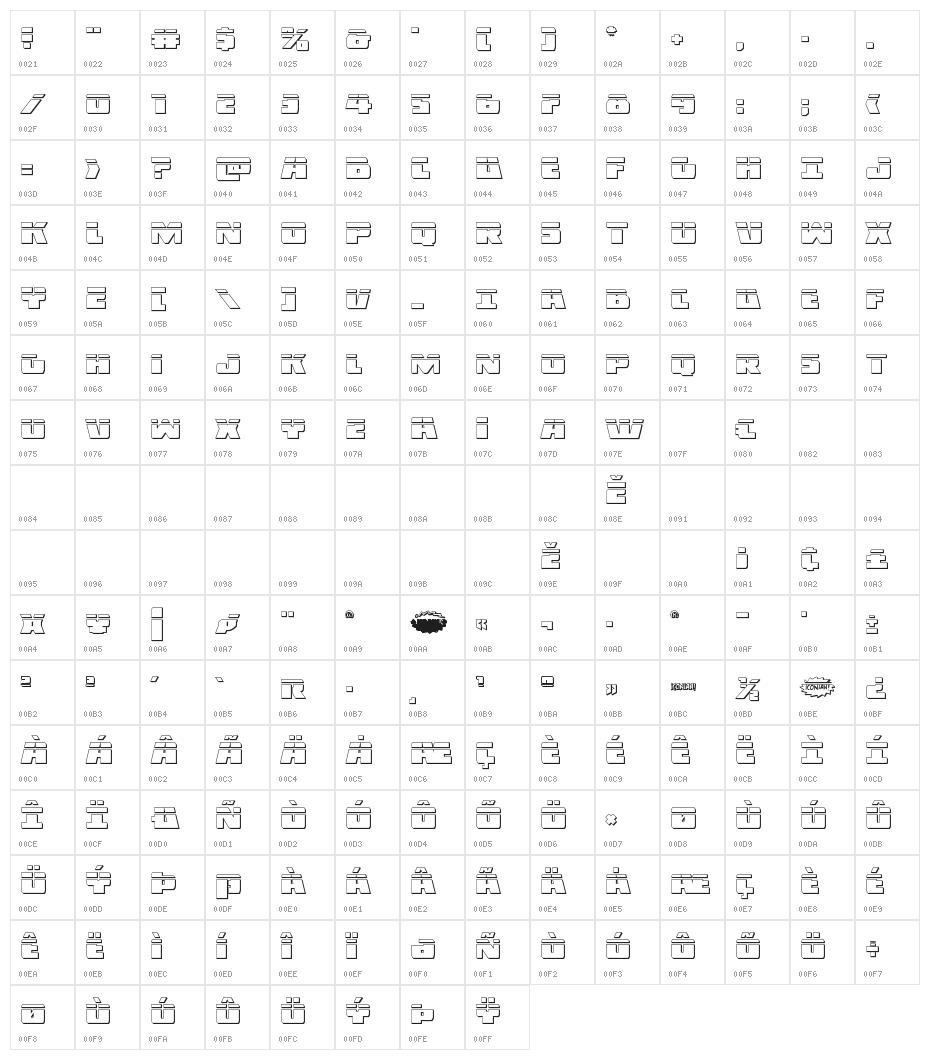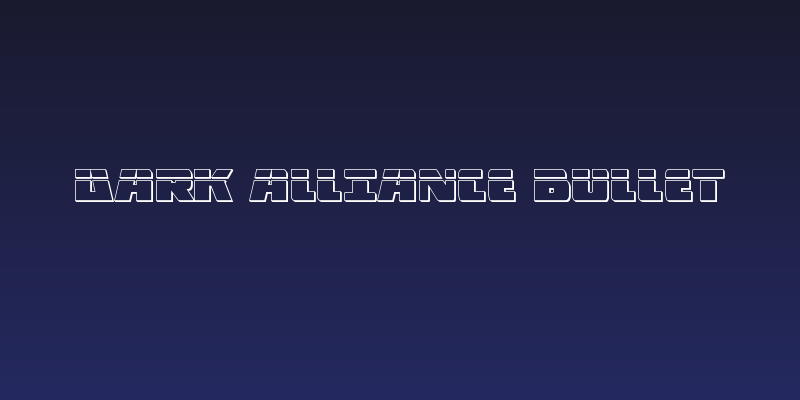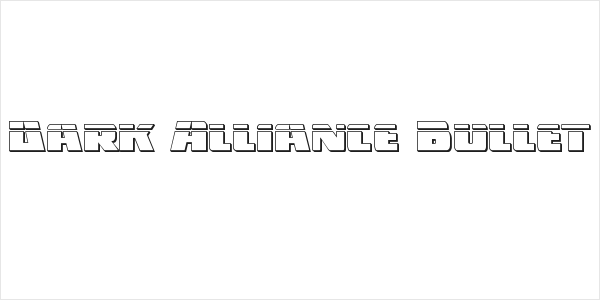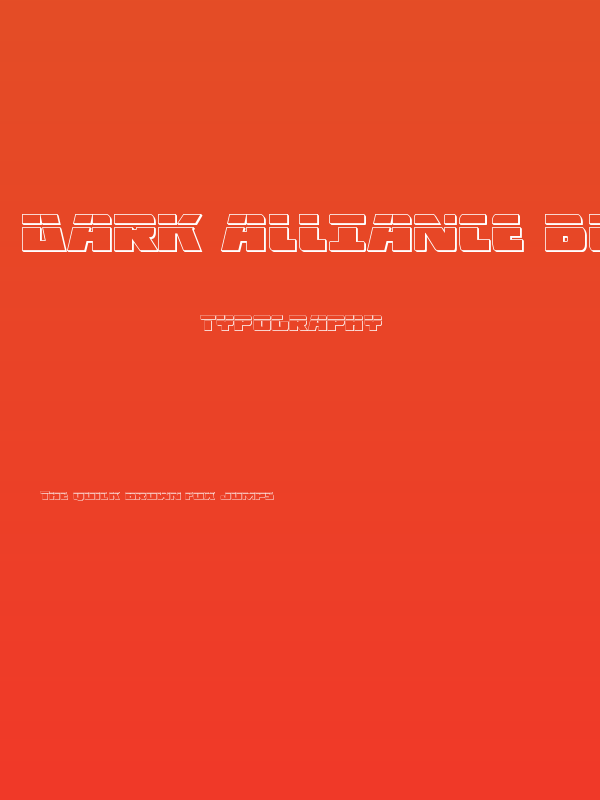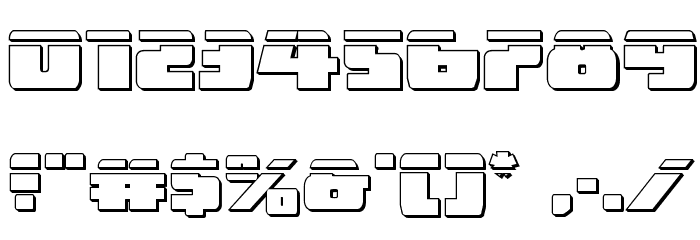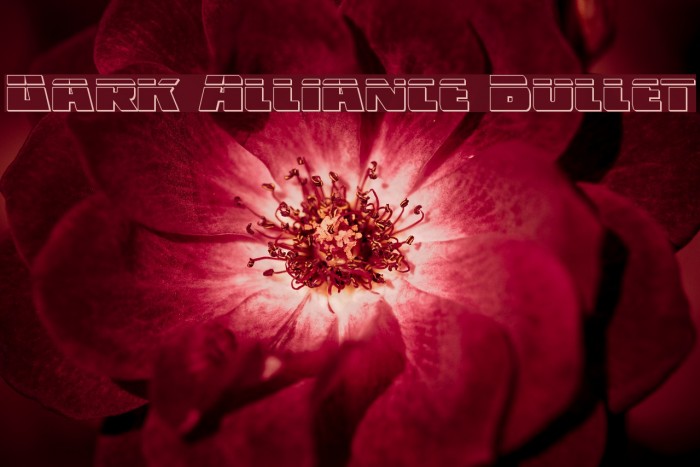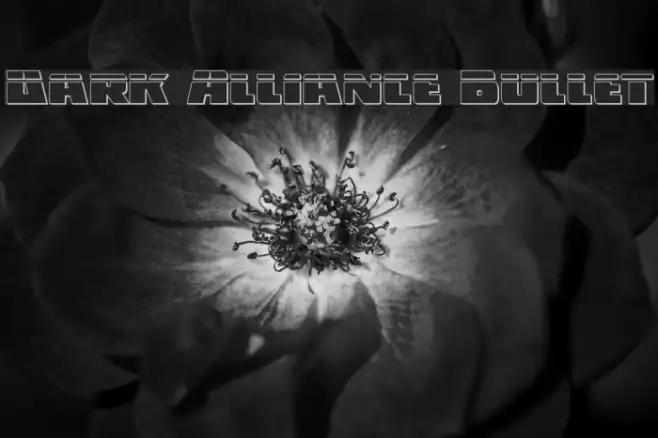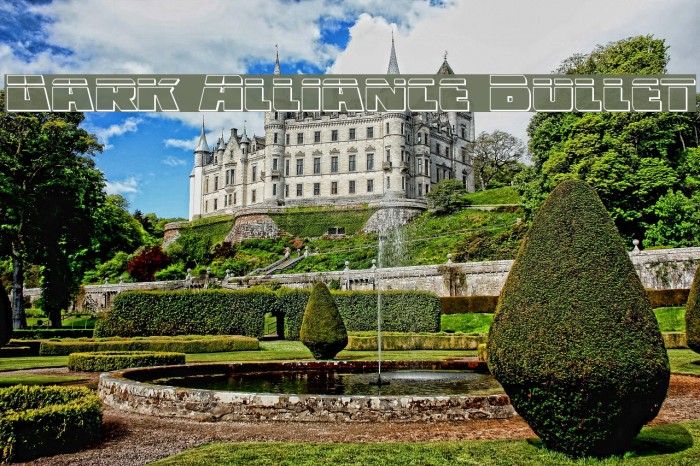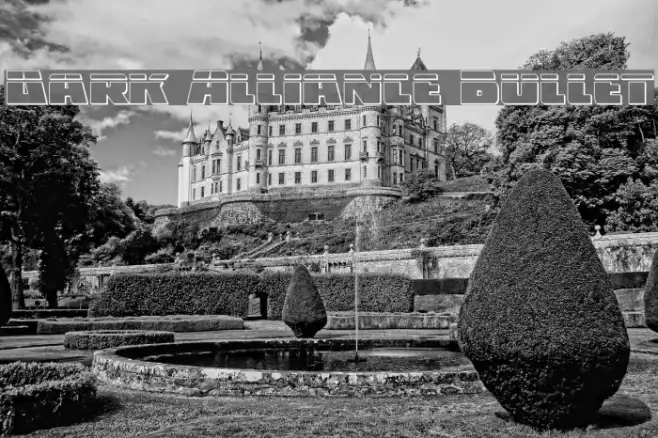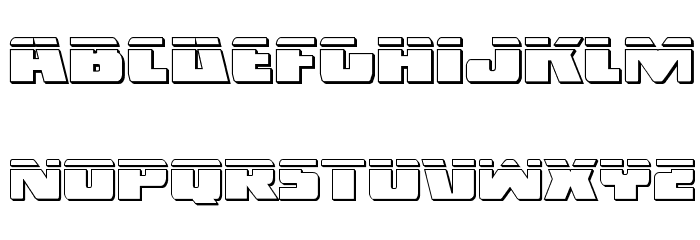
Dark Alliance Bullet Font
Dark Alliance Bullet Description
This font features a bold, geometric design with a futuristic and industrial feel. The characters are constructed with thick, angular lines and sharp edges, giving them a strong, impactful presence. The uppercase letters are consistent in height, while the numerals and special characters maintain the same bold style. The font's design is reminiscent of digital or sci-fi themes, making it suitable for projects that require a modern and edgy look. The characters are tightly spaced, enhancing the compact and robust appearance. This font is ideal for creating eye-catching headlines, posters, or branding materials that need to convey a sense of strength and modernity.
| Overall Style | Futuristic, Industrial |
| Proposed Projects | Ideal for sci-fi themed posters, video game titles, tech branding, and modern advertisements. |